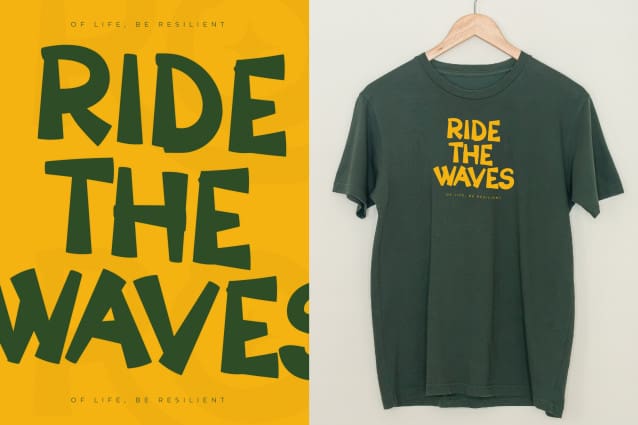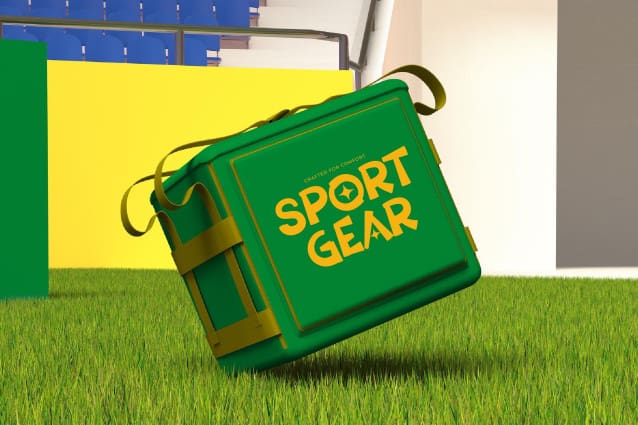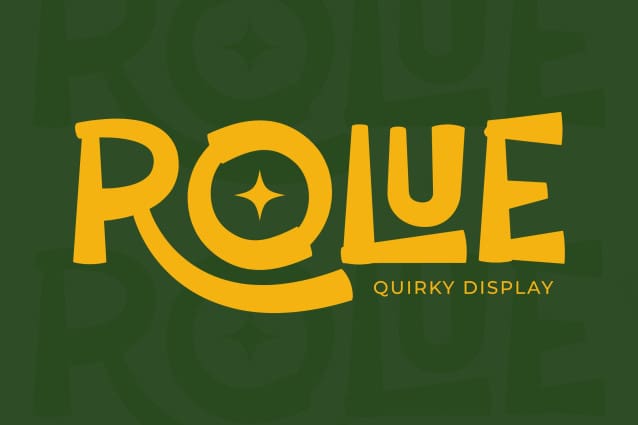
Rolue Display Font
Rolue Display Font, Suitable for any design needs : logo, branding, modern advertising design, logos, poster quote, book / cover Title, editorial design, website / blog, card, t-shirts,…